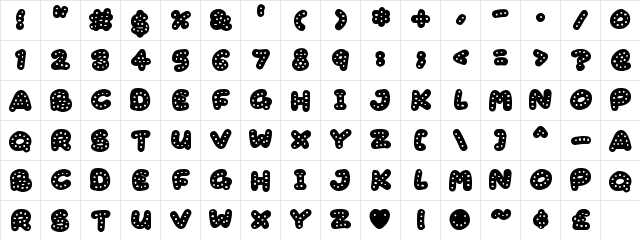
Gingerbread Regular
Design Context for Gingerbread Typeface
Gingerbread is a composed and adaptable typeface that performs quietly and consistently across a wide range of design contexts.